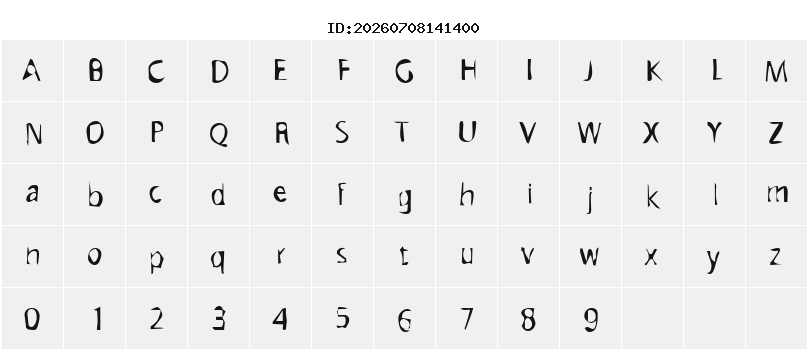
DTCDirtyM43.ttf is a modern, elegant sans-serif font designed for ultimate readability and visual harmony. Perfect for branding, headlines, web design, and print materials.